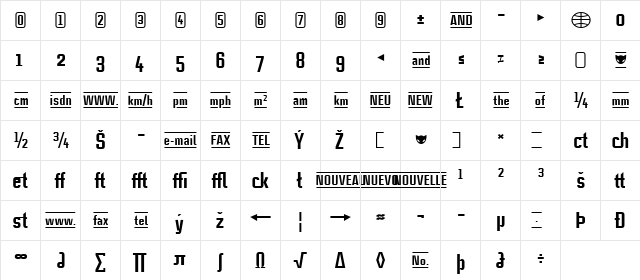
CaseStudyNoOne LT Heavy
Design Context for CaseStudyNoOne LT Typeface
CaseStudyNoOne LT takes a measured approach to typography — its balanced proportions and neutral character make it a reliable workhorse for both digital and print work. Its slender proportions lend an understated elegance to any composition.